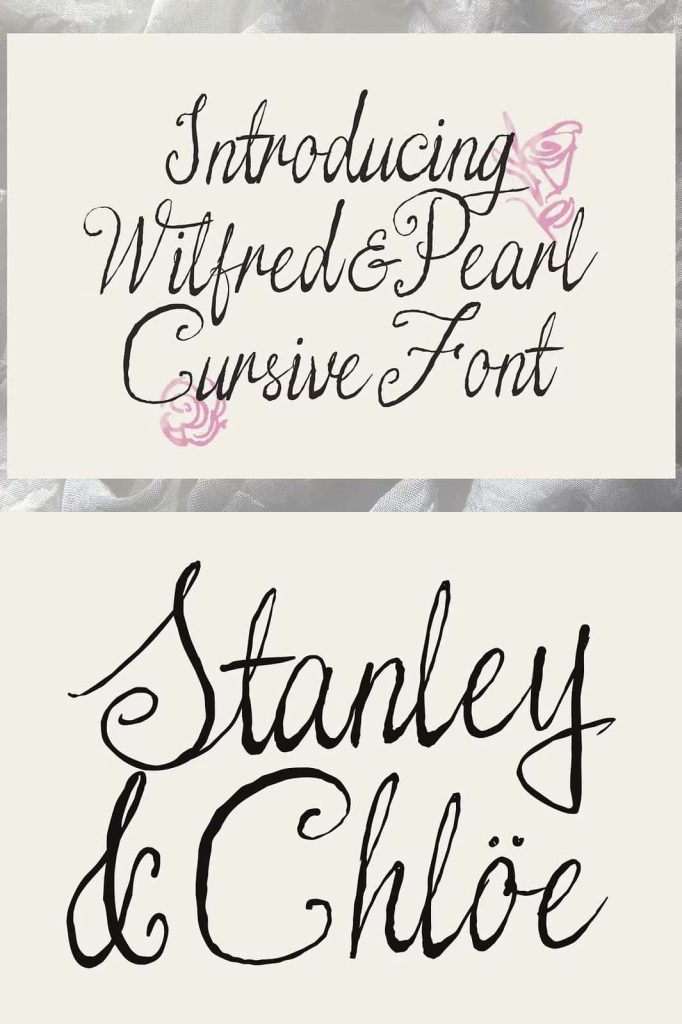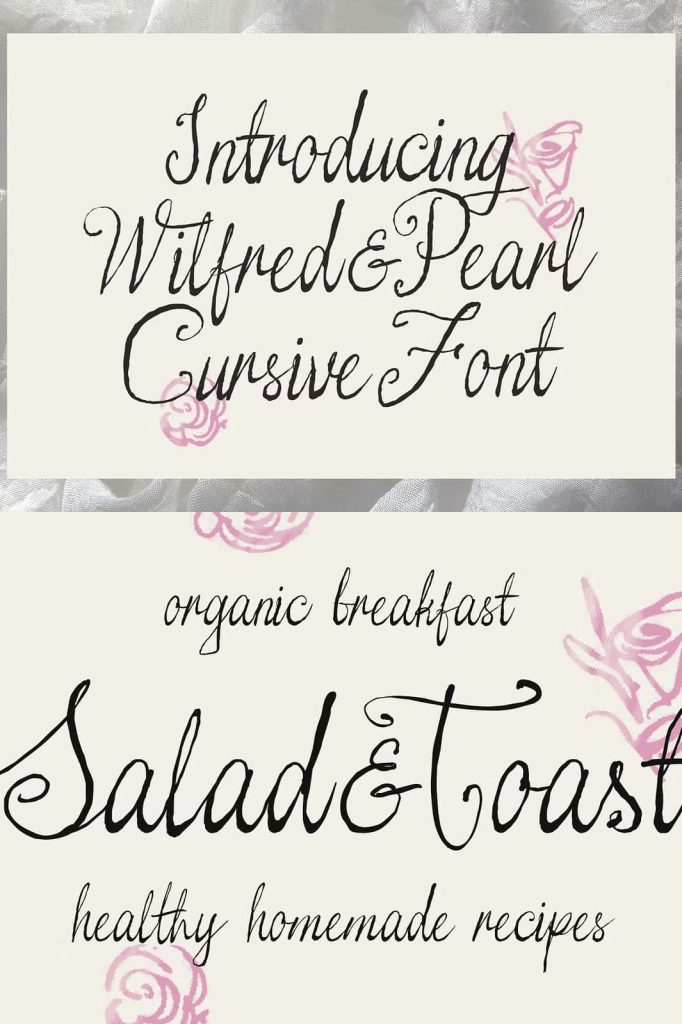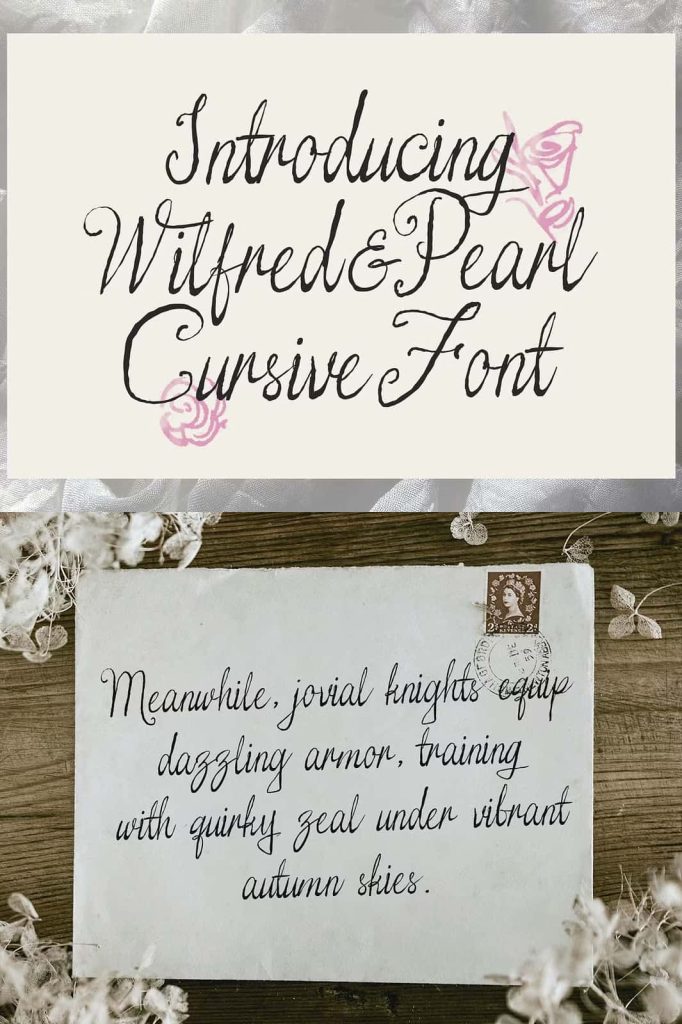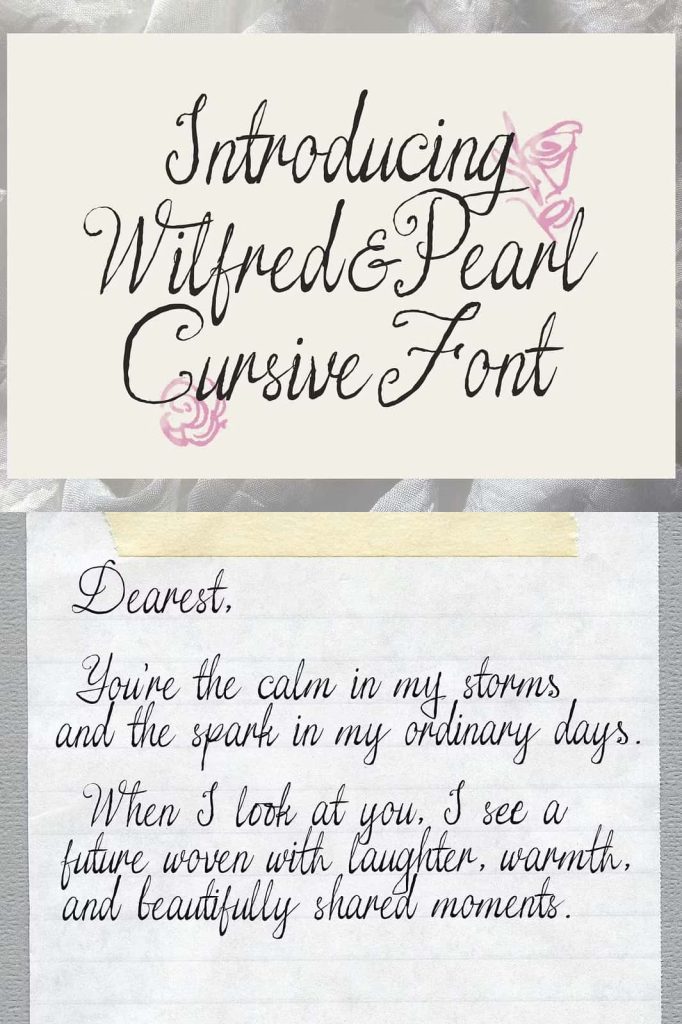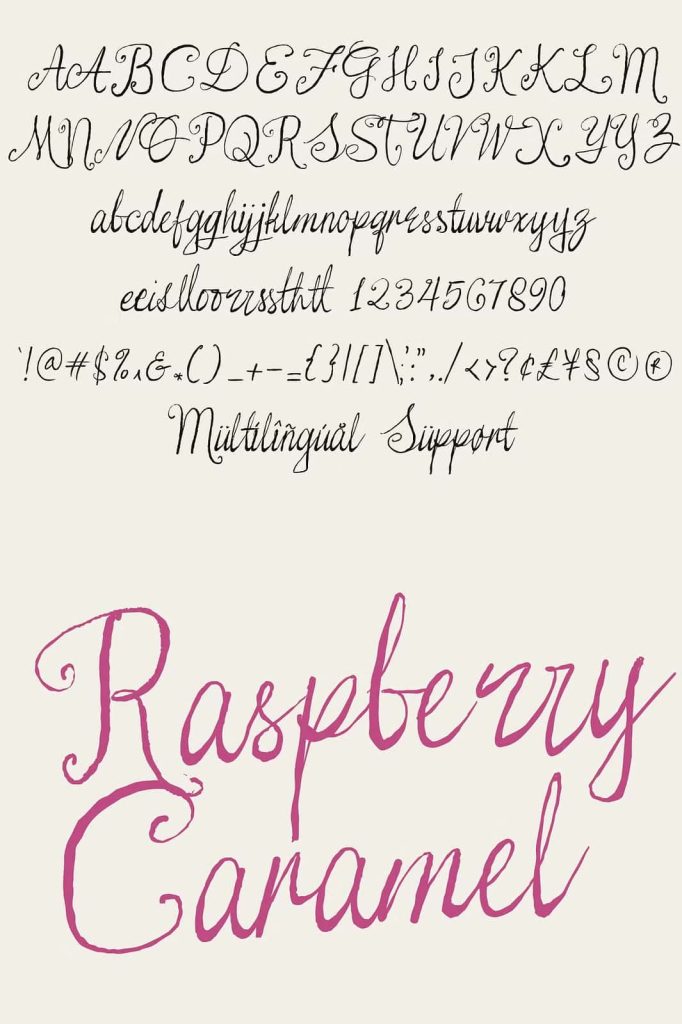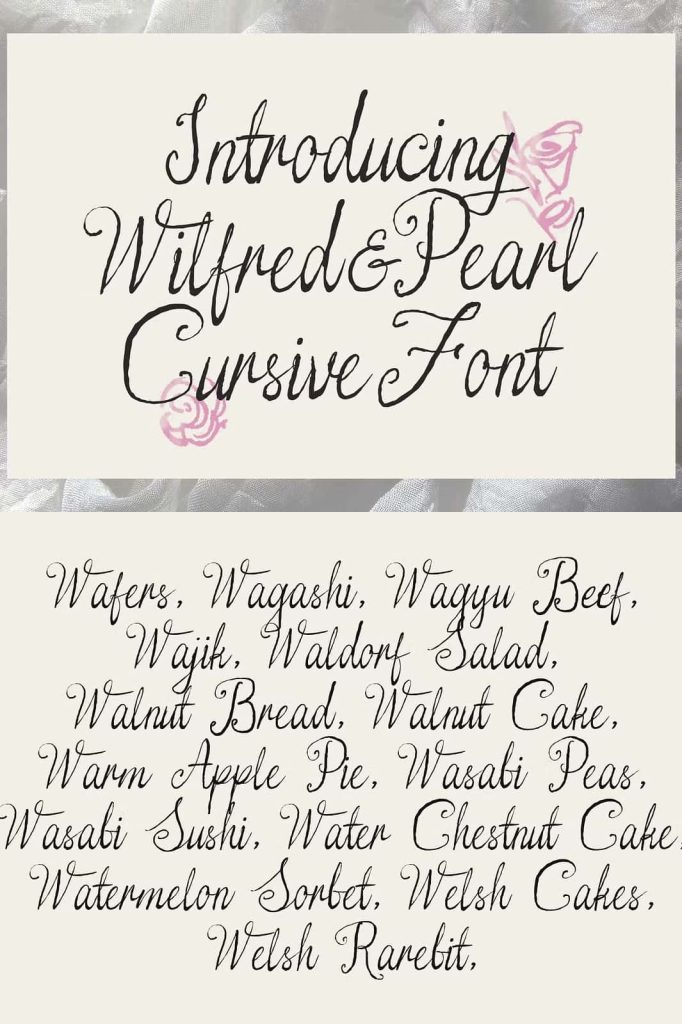
Wilfred Pearl Cursive Script
Wilfred & Pearl Handwritten Font – Elegant Cursive Typeface with Handcrafted Charm
Wilfred & Pearl Handwritten Font is a beautifully crafted handwritten cursive typeface designed to bring warmth, elegance, and authenticity to every creative project. Inspired by the natural movement of handwritten ink on paper, this font features graceful flowing strokes, soft curves, and delicate textures that create a genuine handcrafted appearance. Every character has been thoughtfully designed to capture the beauty of personal handwriting while maintaining excellent readability and professional quality.
Whether you are designing wedding invitations, creating elegant branding, developing greeting cards, or crafting memorable social media graphics, Wilfred & Pearl offers the perfect balance between sophistication and personality. Its natural writing style allows every word to feel intimate and expressive, helping your designs establish a stronger emotional connection with your audience.
Complete with uppercase letters, lowercase characters, numerals, punctuation, and alternate glyphs, Wilfred & Pearl provides everything designers need to build polished typography with exceptional flexibility. From romantic stationery to premium packaging, this versatile font adapts beautifully to both personal and commercial creative projects.
Soft Handwritten Style with Natural Elegance
Wilfred & Pearl embraces the timeless beauty of handwritten lettering. Its flowing connections and balanced letterforms recreate the smooth rhythm of writing with pen and ink, giving every composition a warm and inviting appearance.
Unlike rigid digital typefaces, this handwritten font introduces subtle imperfections and organic movement that make the typography feel authentic and full of character. These natural details help create designs that appear personal, artistic, and carefully crafted.
The elegant cursive style makes Wilfred & Pearl suitable for projects that require both refinement and emotional warmth without sacrificing clarity or readability.
Inspired by Real Ink on Paper
One of the defining characteristics of Wilfred & Pearl is its subtle handwritten texture that mimics the appearance of real ink flowing across paper. The smooth curves and gentle variations create a realistic handwritten effect that adds depth and personality to every design.
This handcrafted quality makes the font ideal for projects that celebrate authenticity, creativity, and human expression. Whether printed on premium stationery or displayed on digital platforms, Wilfred & Pearl maintains its elegant and natural appearance.
Key Features
• Soft handwritten cursive design.
• Natural flowing strokes with elegant letterforms.
• Subtle handcrafted texture inspired by real ink.
• Includes uppercase and lowercase letters.
• Complete numerals and punctuation.
• Alternate characters for more creative typography.
• Excellent readability for display and branding applications.
• Suitable for both print and digital projects.
Perfect for Wedding Stationery
Wilfred & Pearl is an outstanding choice for wedding-related designs. Its graceful handwritten style creates a romantic atmosphere that perfectly complements elegant celebrations and memorable events. The font brings sophistication and warmth to invitations while making every detail feel personal and heartfelt.
Use Wilfred & Pearl to create:
• Wedding invitations
• Save the date cards
• RSVP cards
• Wedding menus
• Place cards
• Thank you cards
• Wedding signage
• Ceremony programs
The handwritten elegance helps transform simple text into beautiful keepsakes that couples and guests will appreciate for years to come.
Create Beautiful Branding with Personality
Typography plays an essential role in building memorable brands, and Wilfred & Pearl helps businesses communicate authenticity, creativity, and sophistication. Its handwritten appearance feels approachable while maintaining a premium aesthetic suitable for modern branding.
This font works especially well for boutiques, beauty brands, handmade products, photographers, florists, cafés, bakeries, creative agencies, lifestyle businesses, and personal brands that want to establish a warm and recognizable identity.
Whether used in logos, business cards, websites, or product packaging, Wilfred & Pearl creates branding that feels elegant and genuinely handcrafted.
Ideal for Greeting Cards and Journals
Wilfred & Pearl brings heartfelt emotion to greeting cards, journals, planners, notebooks, and personal stationery. Its flowing script encourages expressive typography that enhances inspirational quotes, handwritten notes, and meaningful messages.
The font’s natural writing style makes every page feel more intimate, making it an excellent choice for both personal projects and commercial publishing.
Excellent for Digital and Print Design
Wilfred & Pearl Handwritten Font is a soft and elegant cursive typeface designed for creatives who appreciate authentic handwritten beauty. Featuring graceful flowing strokes, subtle ink-inspired texture, complete character support, and versatile alternate glyphs, this font is perfect for wedding invitations, greeting cards, journals, branding, logos, packaging, photography, and premium lifestyle projects. Add Wilfred & Pearl Handwritten Font to your typography collection and create designs that communicate warmth, sophistication, and handcrafted elegance with every letter.